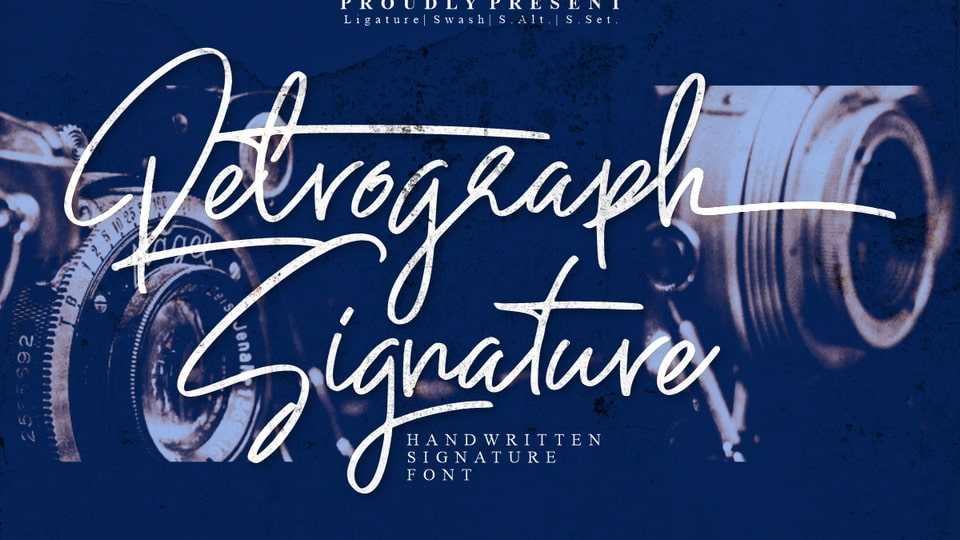
Retrograph Font › Fontesk – Download Grátis
Download Retrograph font, a handwritten signature style script that looks neat and clear. Consistent lines make this font neat and beautiful.